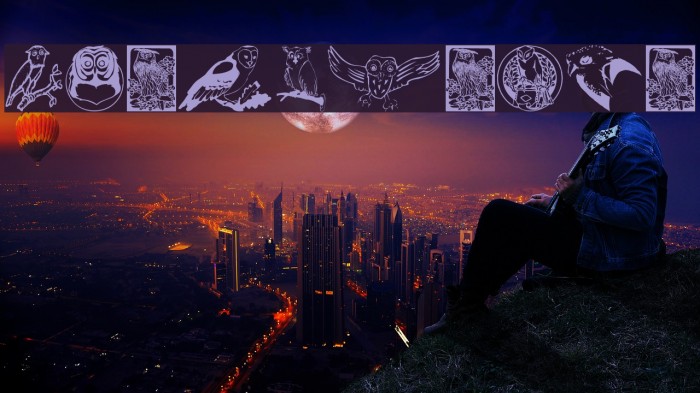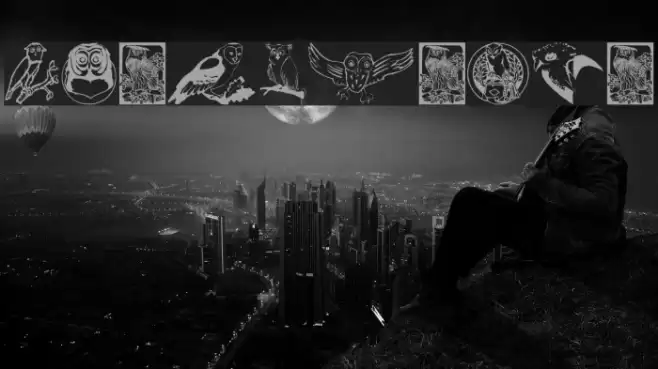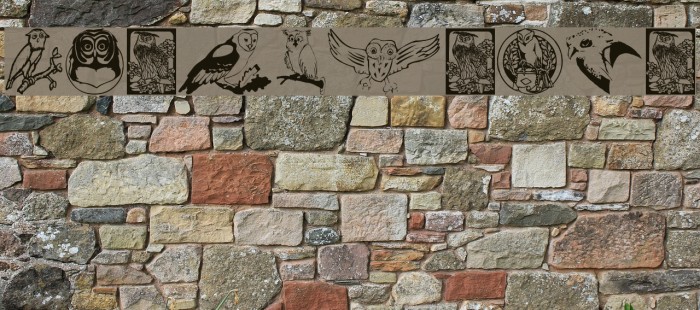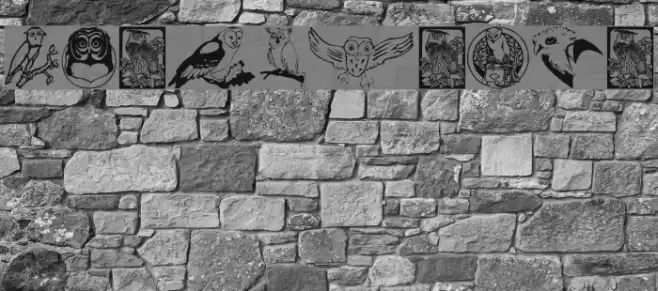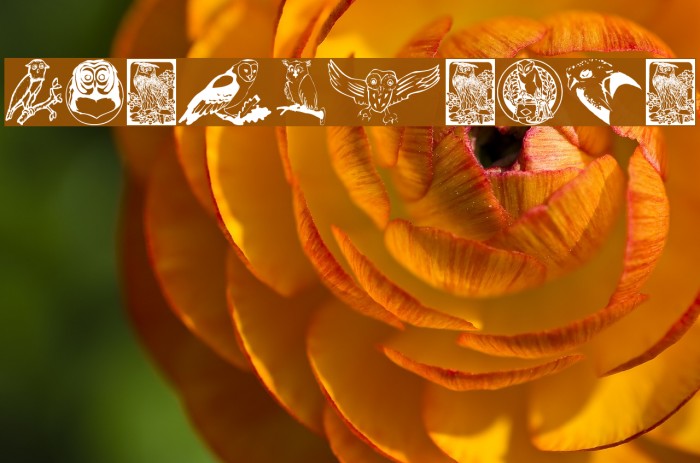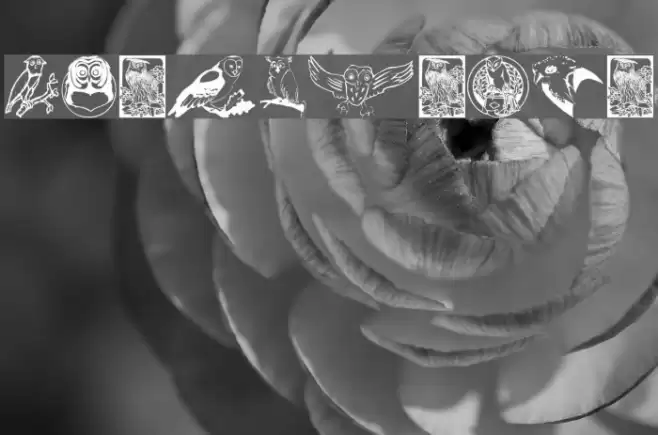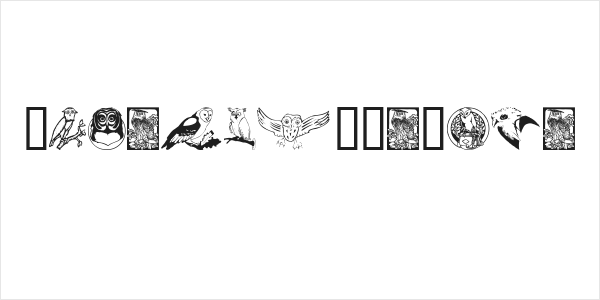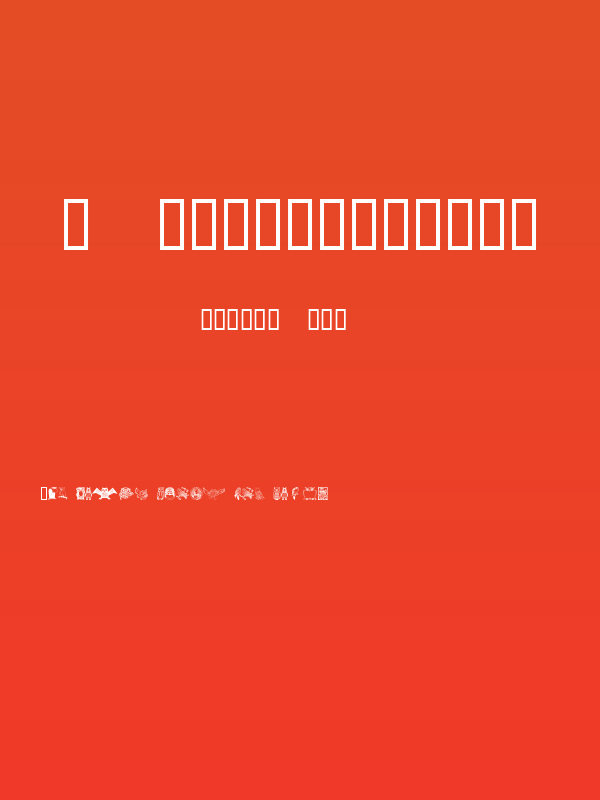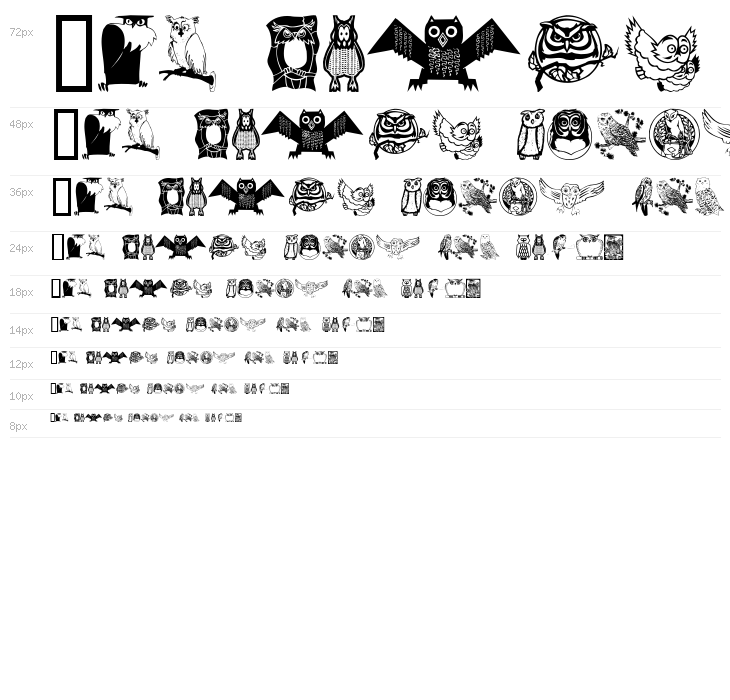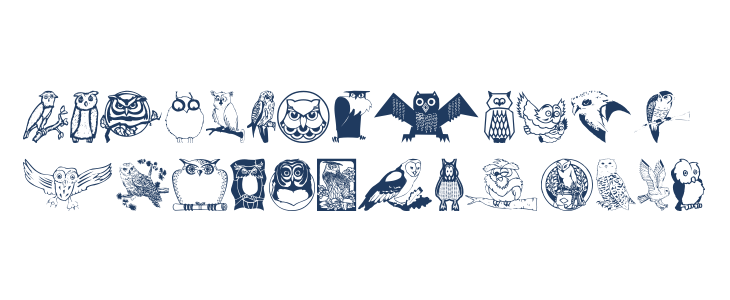
Carsten'sOwls Font
Carsten'sOwls Description
A decorative dingbat font featuring a variety of illustrated owl designs, each character slot displaying a unique owl in different poses and artistic styles. The illustrations range from realistic to cartoonish, with both detailed and simplified line work.
| Overall Style | Decorative, Playful, Thematic |
| Use Case | Illustrative elements, icons, embellishments |
| Proposed Projects | ChildrenΓ’β¬β’s books, educational materials, wildlife posters, themed invitations, scrapbooking, and creative design projects. |